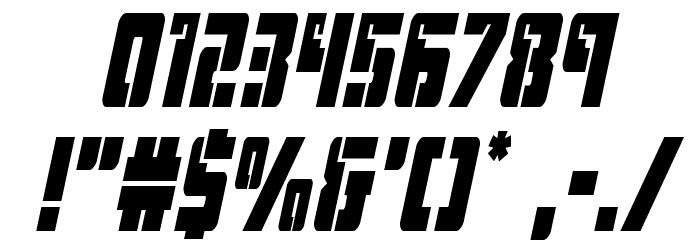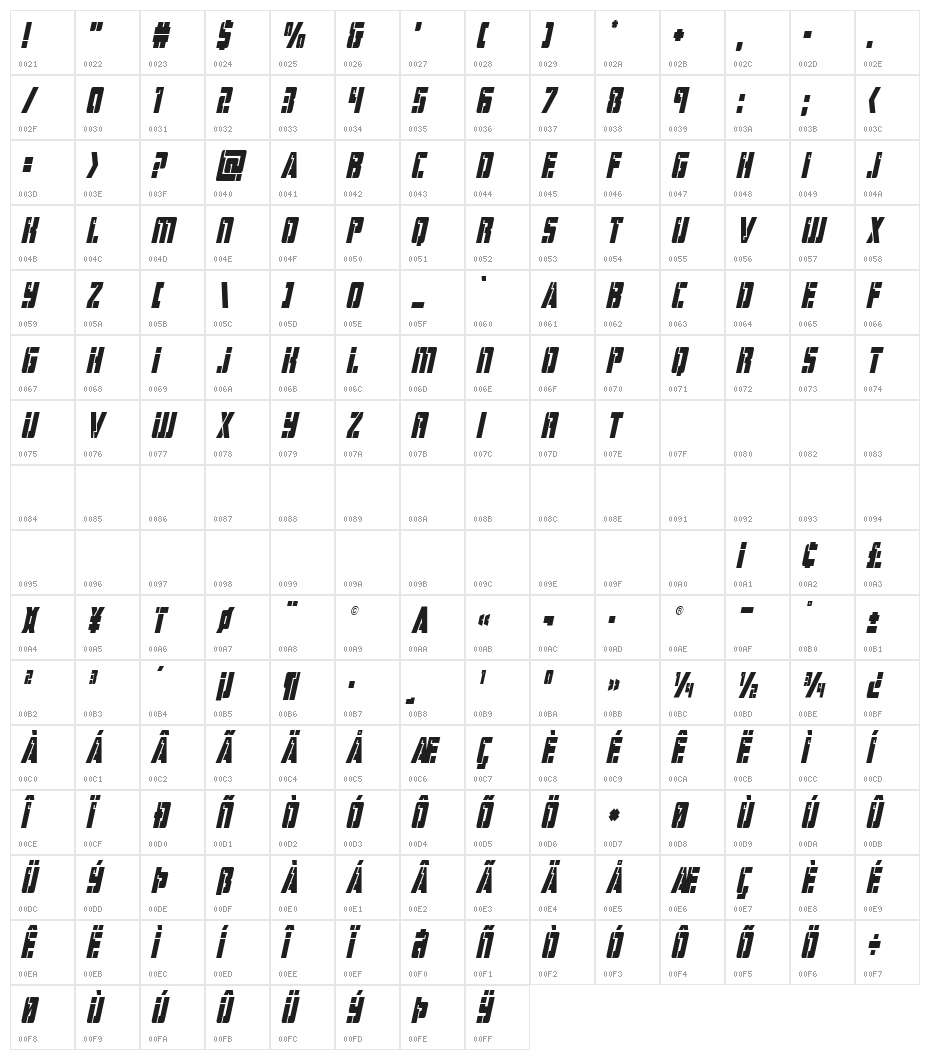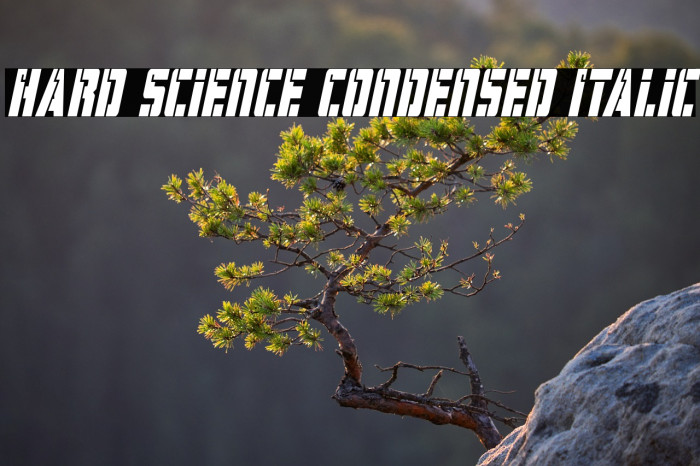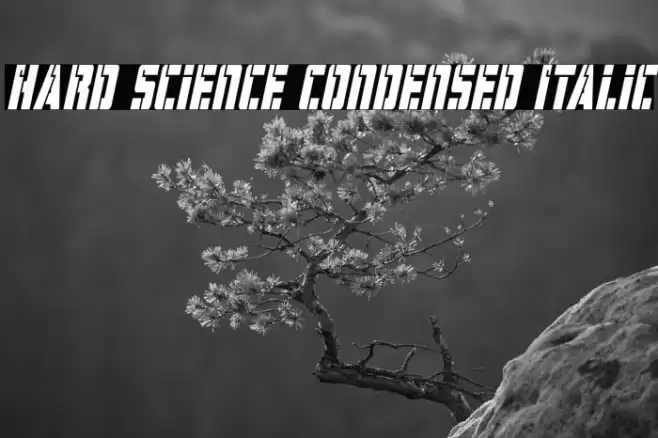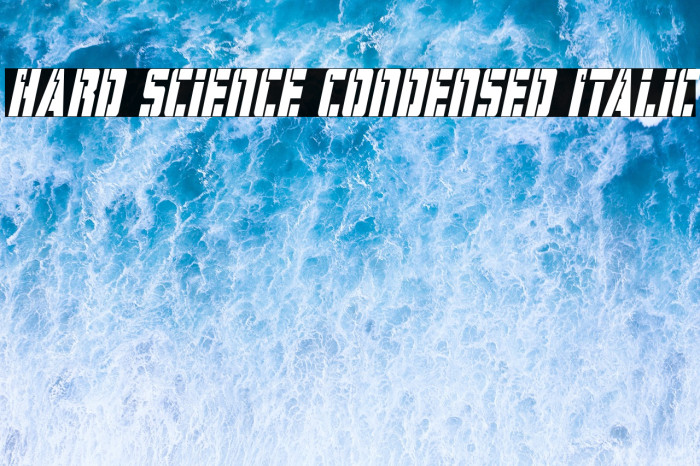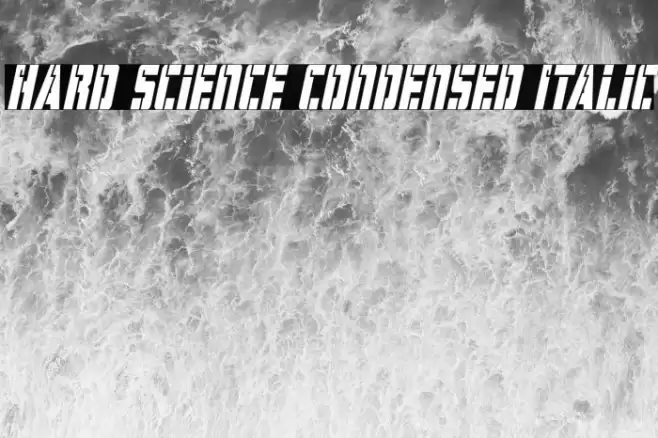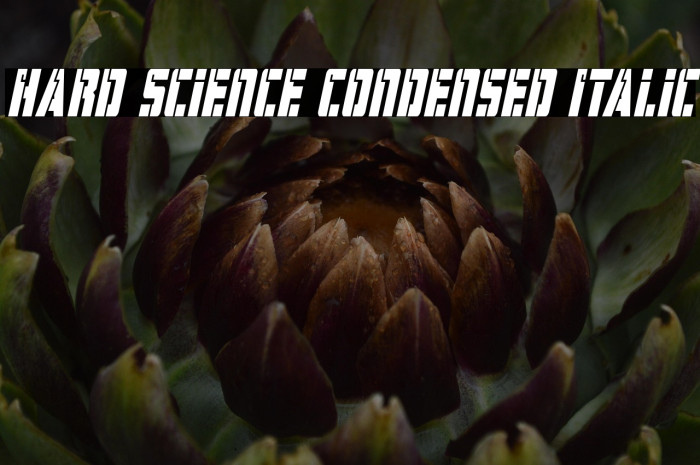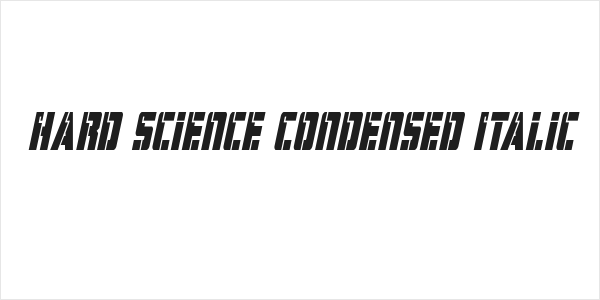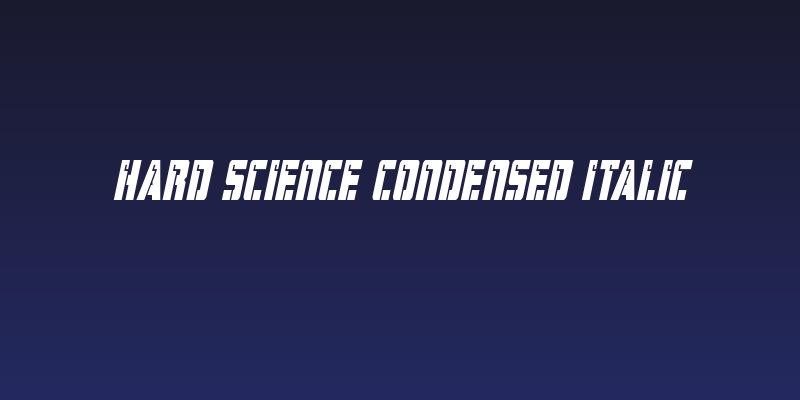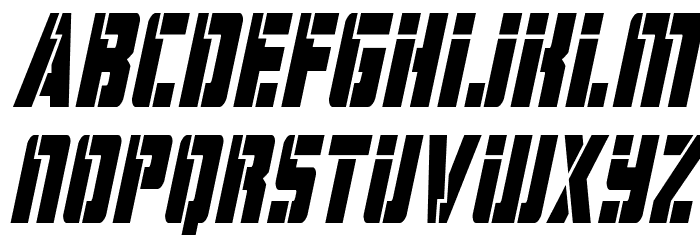
Hard Science Condensed Italic Font
Hard Science Condensed Italic Description
This font features a bold, condensed style with a distinct italic slant, giving it a dynamic and forward-moving appearance. The characters are tightly spaced, enhancing the compact and impactful look. The strokes are thick and consistent, providing a strong visual presence. The angular design of the letters adds a futuristic and technical feel, making it suitable for projects that require a modern and edgy aesthetic. The font includes a full set of uppercase and lowercase letters, numbers, and a variety of special characters, ensuring versatility in design applications.